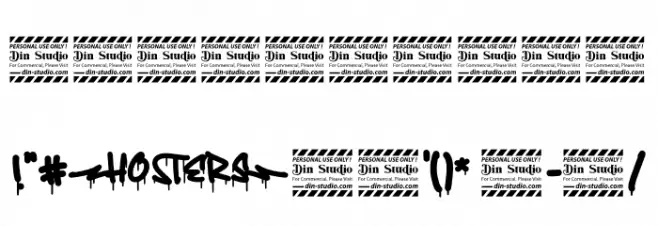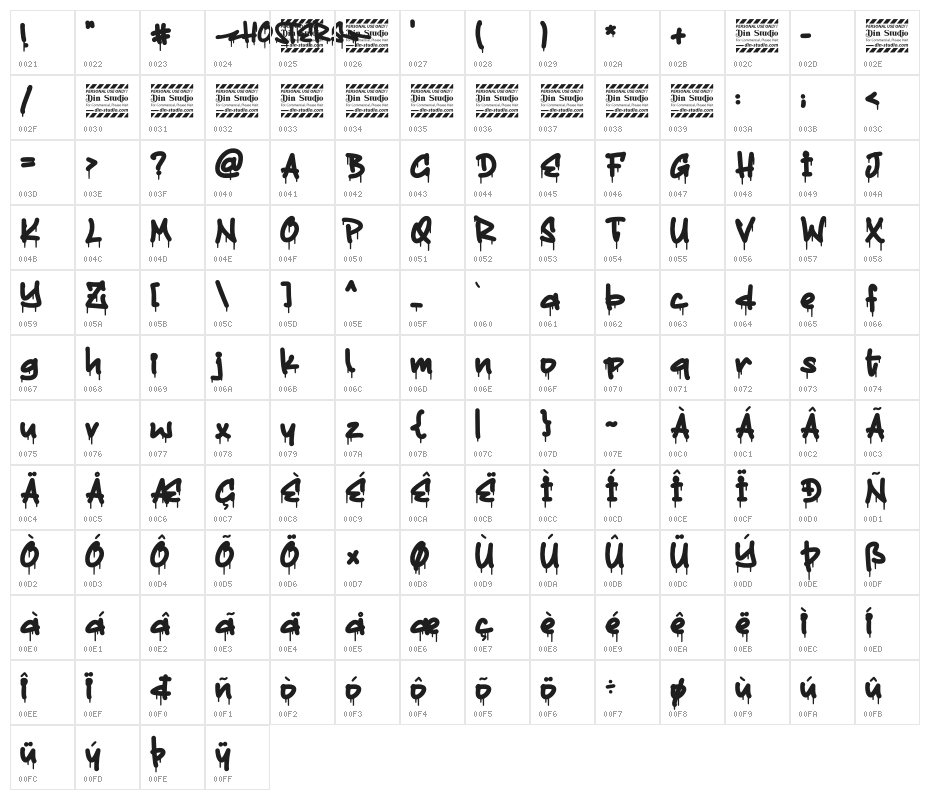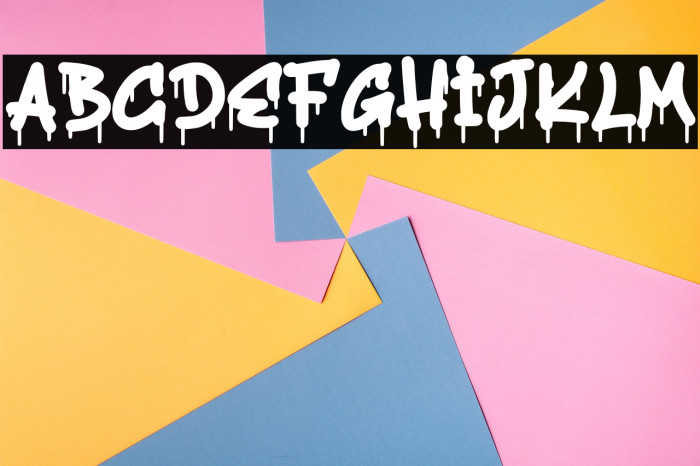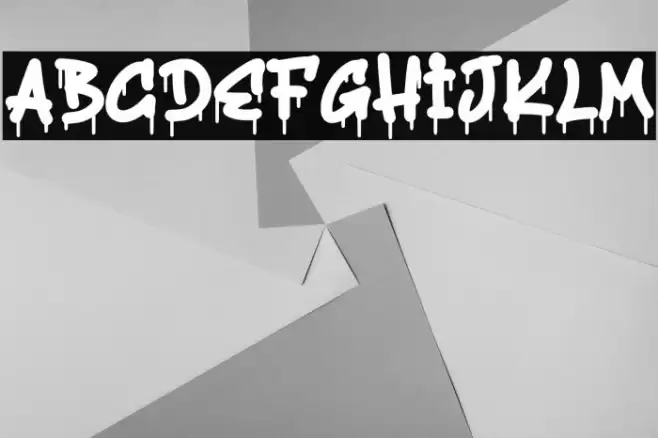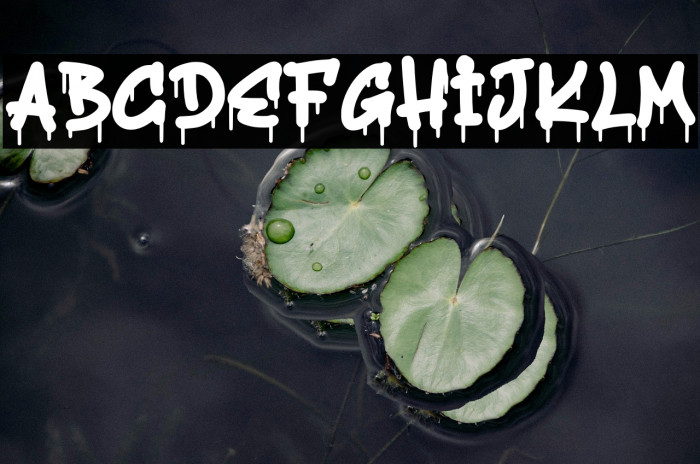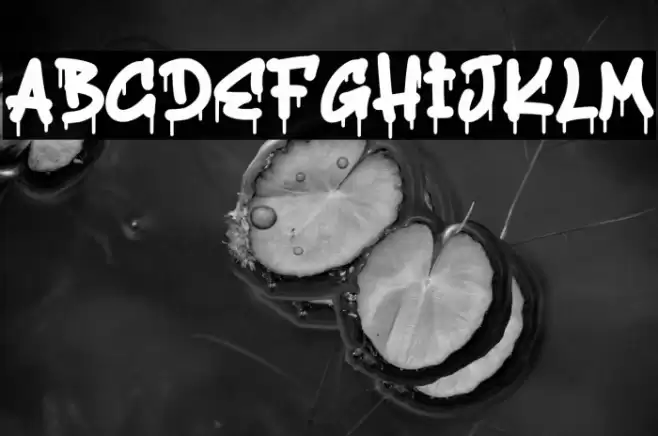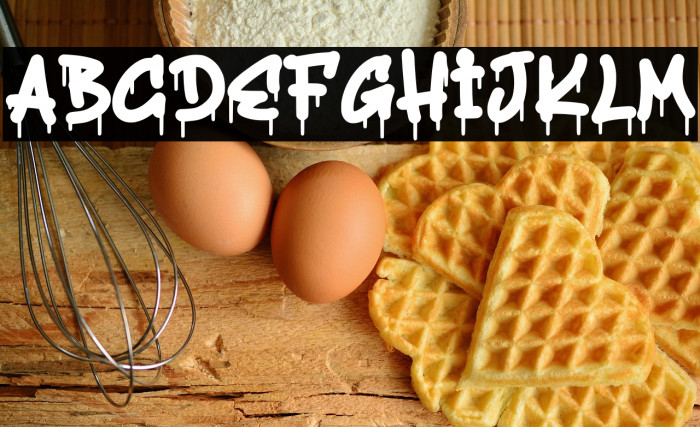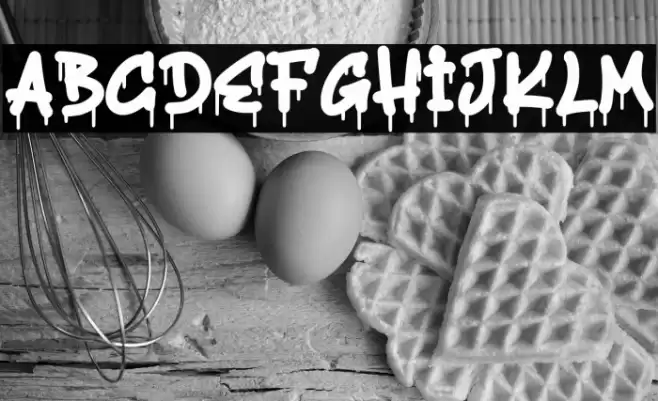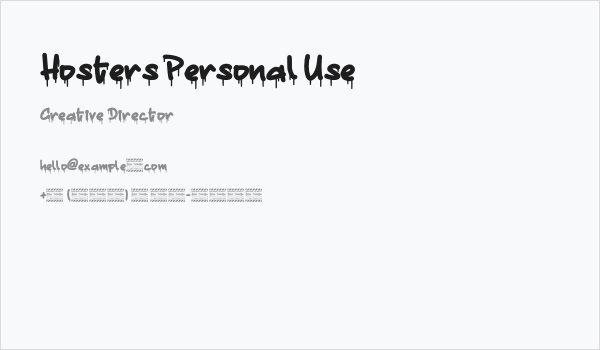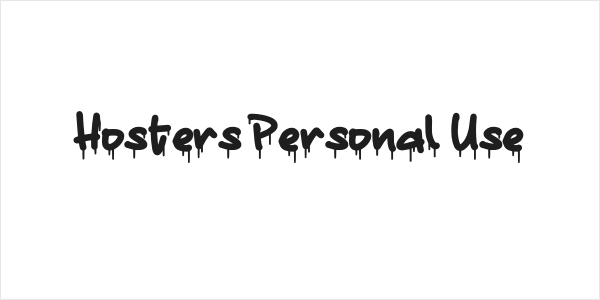
Hosters Personal Use Font
Hosters Personal Use Description
This font features a bold, graffiti-inspired style with a dripping paint effect, giving it a rebellious and urban aesthetic. The characters are thick and bold, with a playful yet edgy appearance. The uppercase and lowercase letters maintain a consistent style, with rounded edges and a dynamic flow. The numbers and special characters are designed to match the overall theme, making it suitable for projects that require a strong visual impact. The font's unique design makes it ideal for creative and unconventional uses.
| Overall Style | Urban, Edgy, Graffiti |
| Proposed Projects | Ideal for street art projects, music album covers, event posters, and any design requiring a bold, urban aesthetic. |